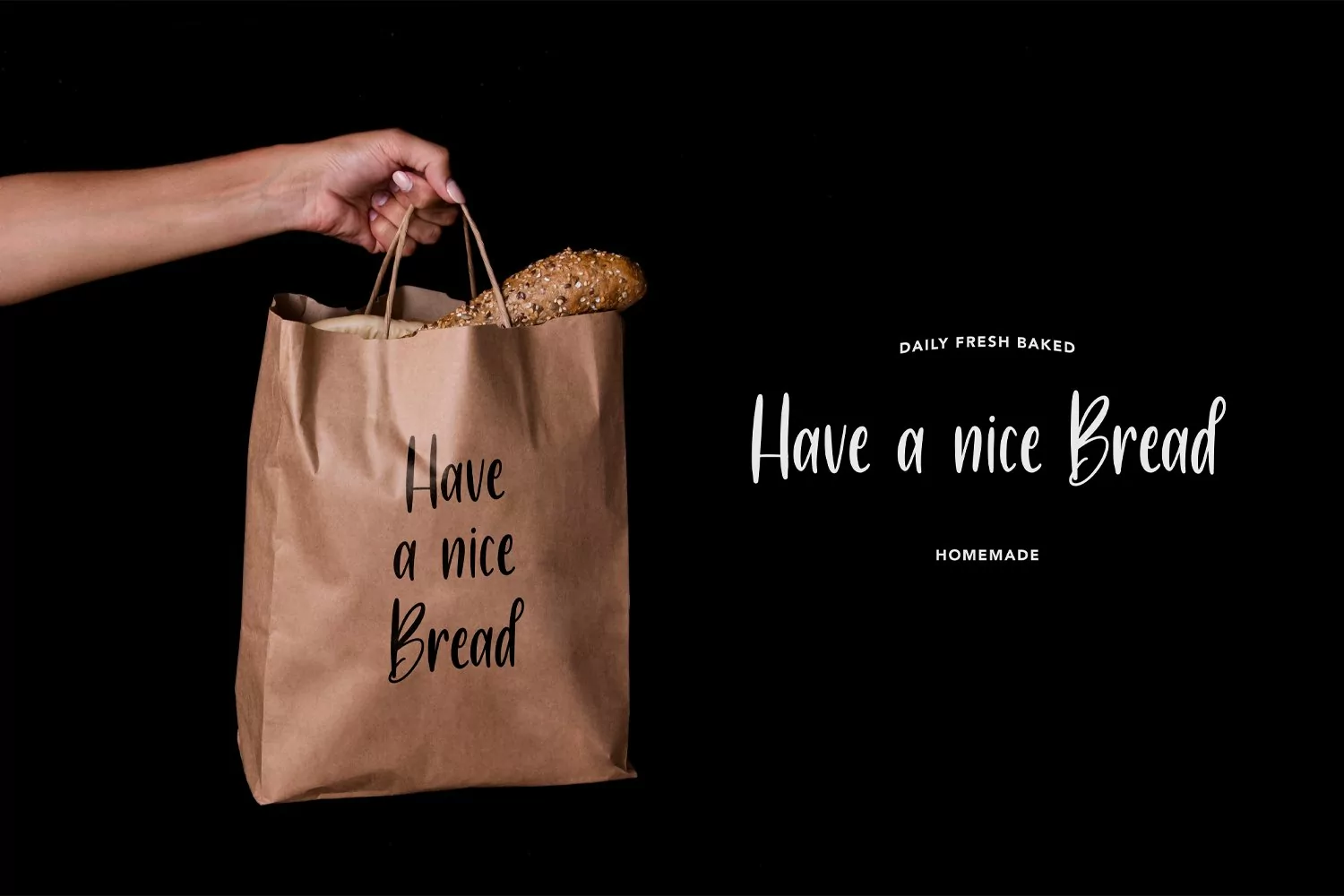
Give your designs an authentic handcrafted feel. “BlissHearts Handwriting Font” is perfectly suited to signature, stationery, logo, typography quotes, magazine or book cover, website header, clothing, branding, packaging design and more.